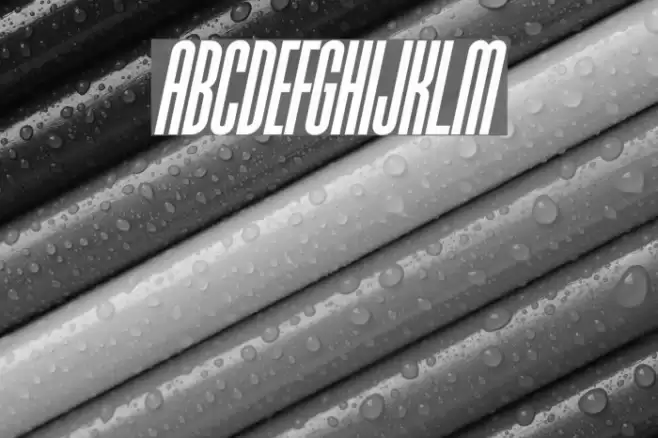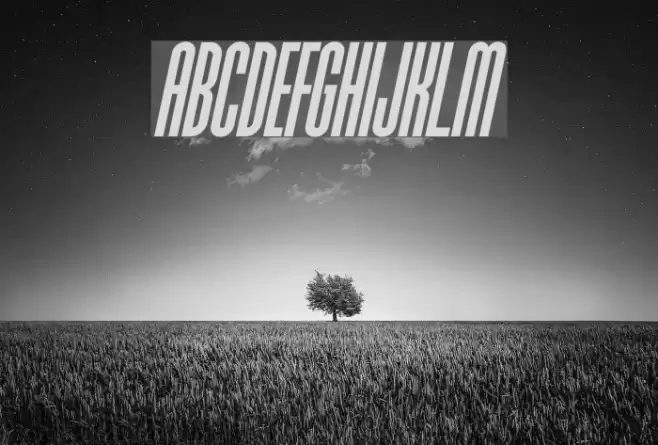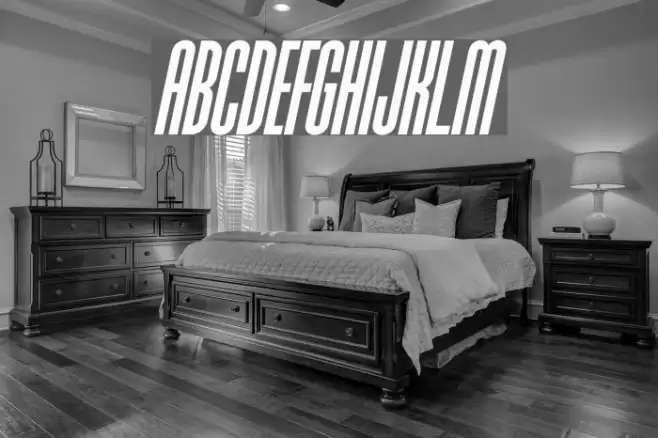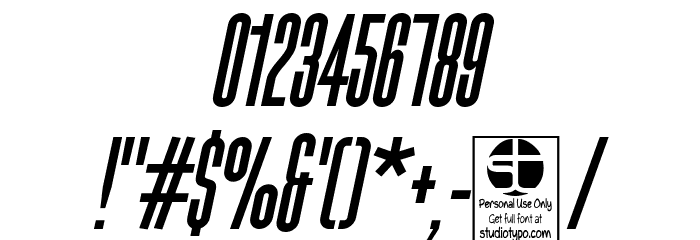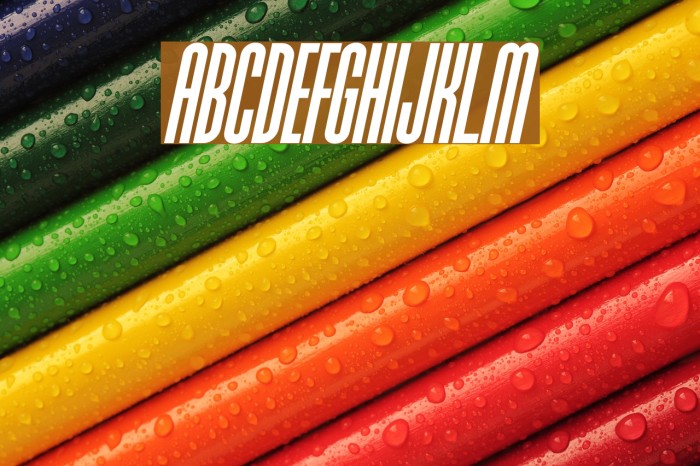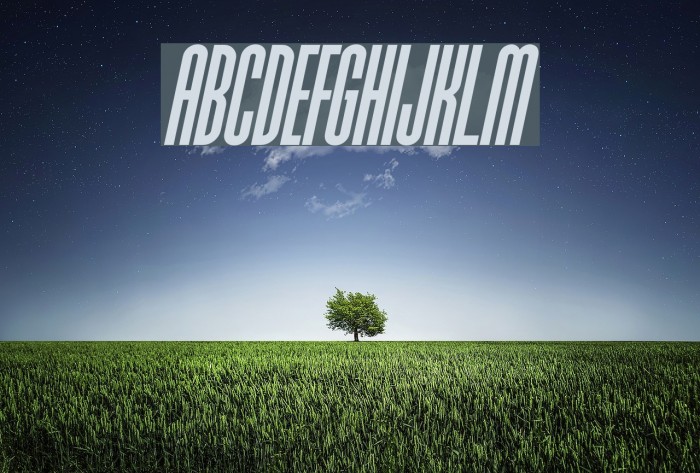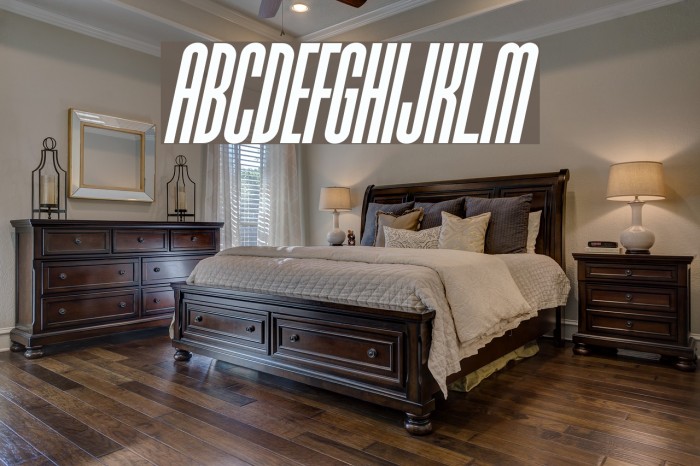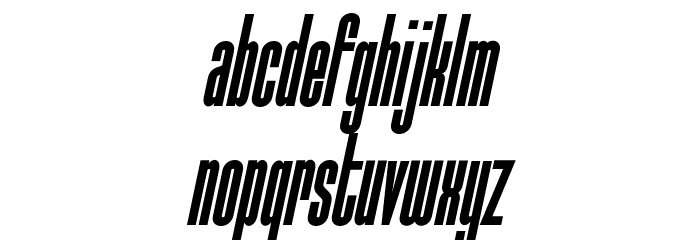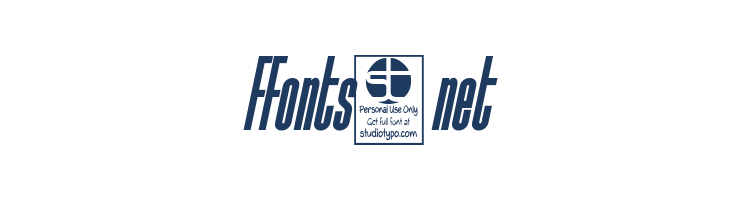
Typo-Longest Demo Bold Italic Font
Typo-Longest Demo Bold Italic Description
This font features a bold and italicized style with a strong, dynamic presence. The letters are elongated and slightly condensed, giving a sleek and modern appearance. The uppercase and lowercase characters maintain a consistent slant, enhancing the italic effect. The numerals and special characters are designed to match the overall aesthetic, providing a cohesive look. The strokes are uniform in thickness, contributing to a medium contrast. This font is ideal for making a statement with its assertive and stylish design.
A bold, italicized font with a sleek, modern look and medium contrast from Uncategorized fonts.
- Proposed Projects: Ideal for branding, headlines, posters, and any project requiring a bold, modern statement.